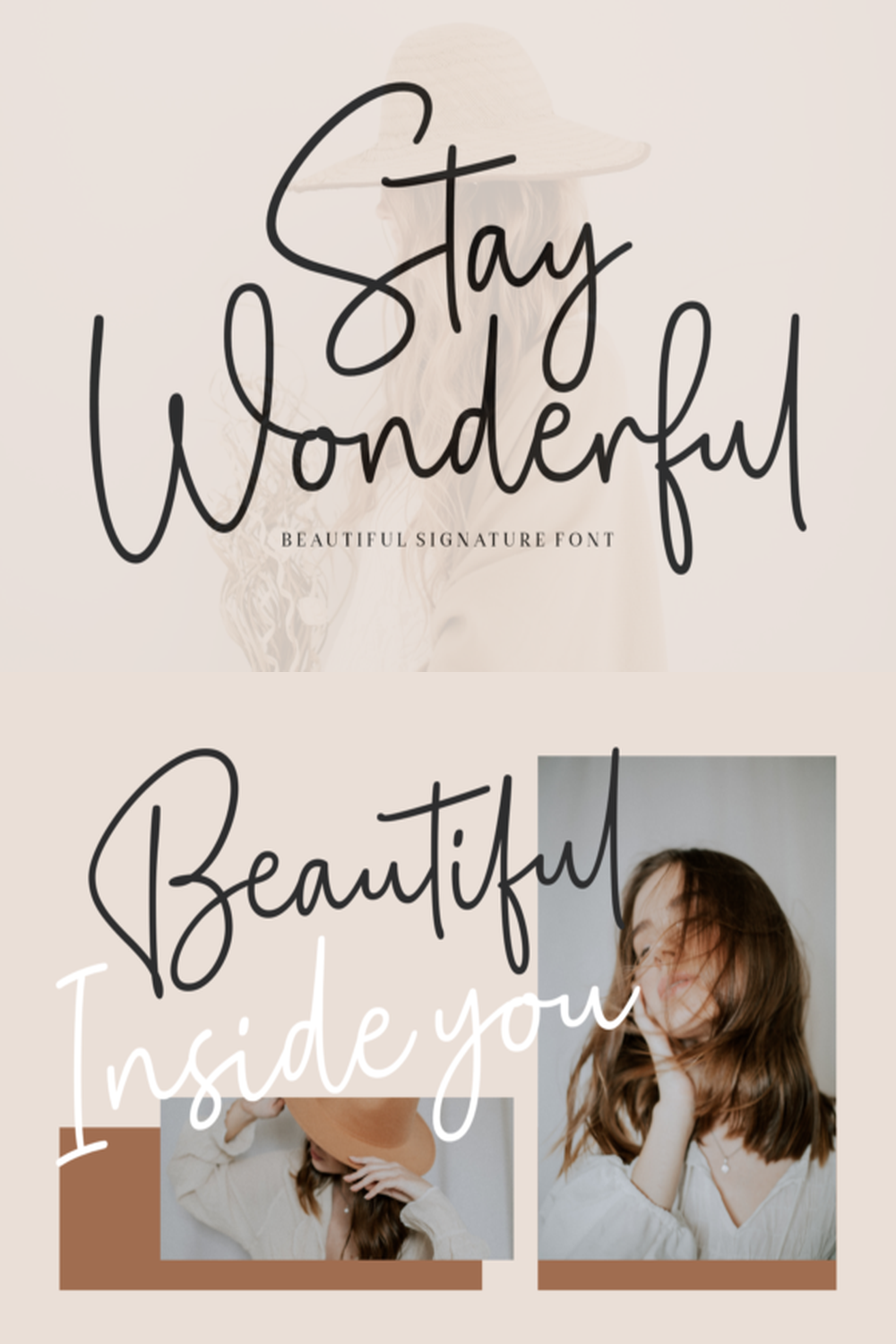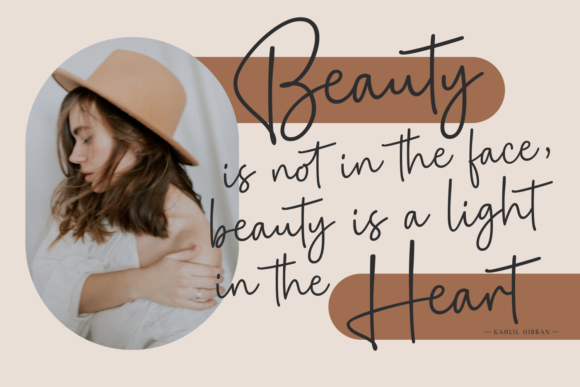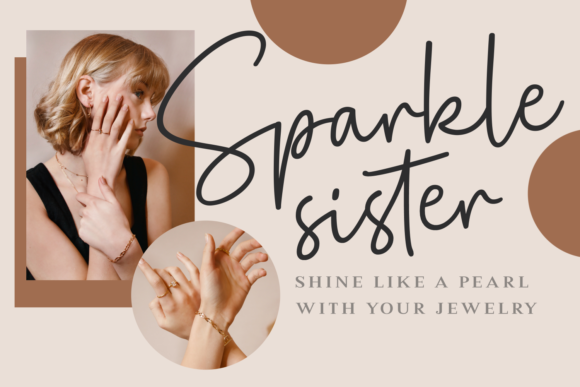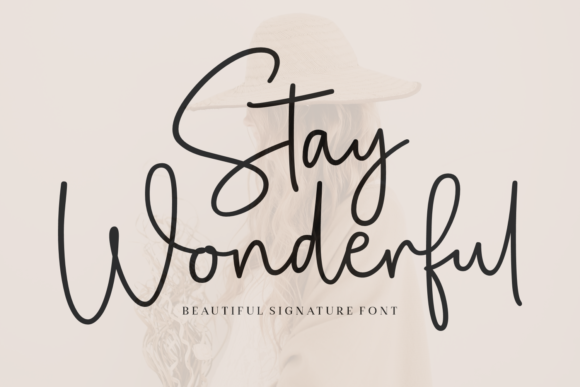
Stay Wonderful Font
About the Stay Wonderful Font
Introducing the Stay Wonderful Font, a beautifully crafted typeface designed to elevate your creative projects. Stay Wonderful is a thin and beautiful handwritten font. Its distinct and well rounded letters make this font a masterpiece. Fall in love with its incredibly versatile style and use it to create spectacular designs!